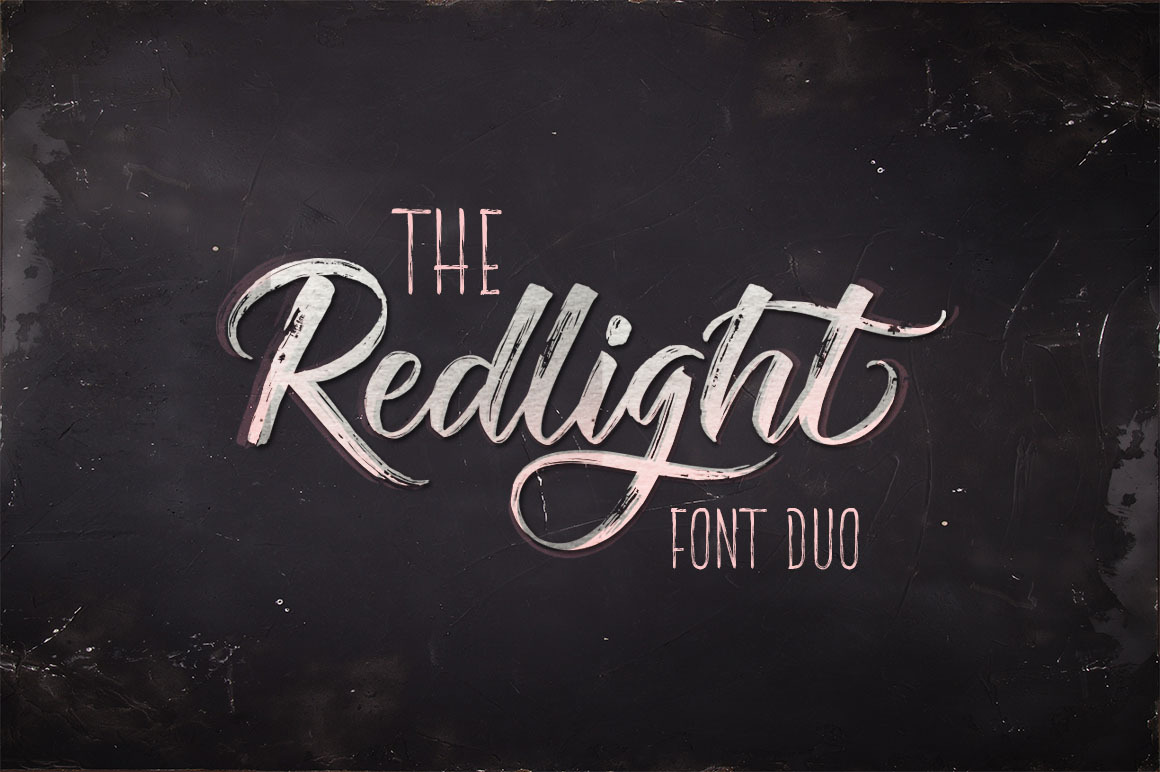
The Redlight Font Duo (UPDATE)
The Redlight Font Duo is a beautiful Script, It suitable for wedding invitation, greeting cards, T-Shirt, Logo or any design that you create.comes with a complete set of standard characters, Alternates, Punctuation & international glyphs
- UPPERCASE
- lowercase
- numeral
- punctuation
- international glyphs
- Alternates Glyphs